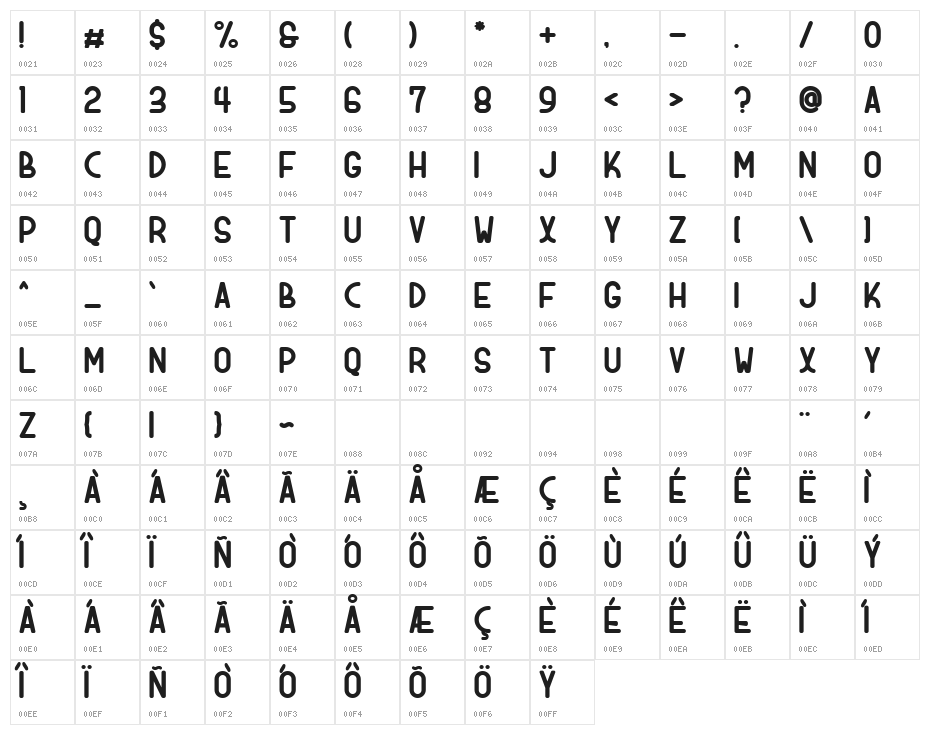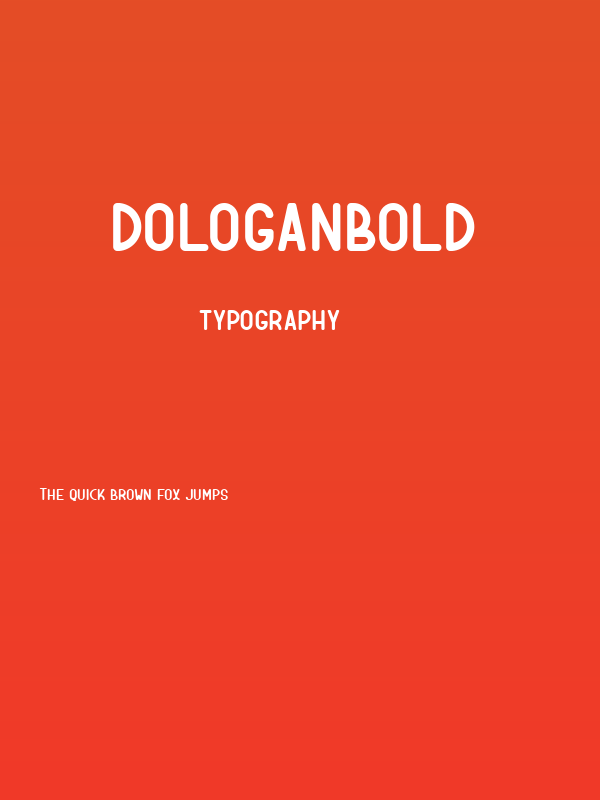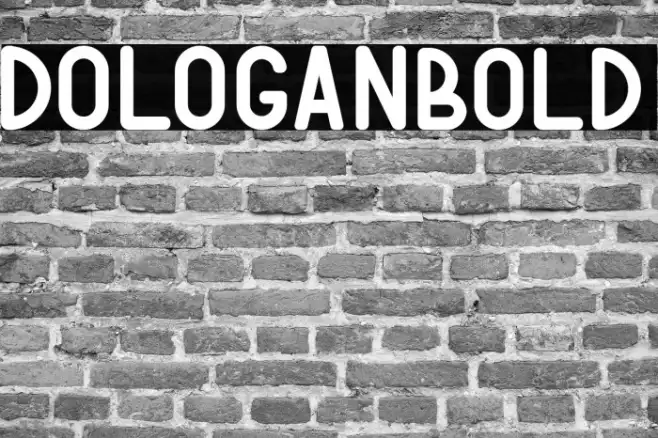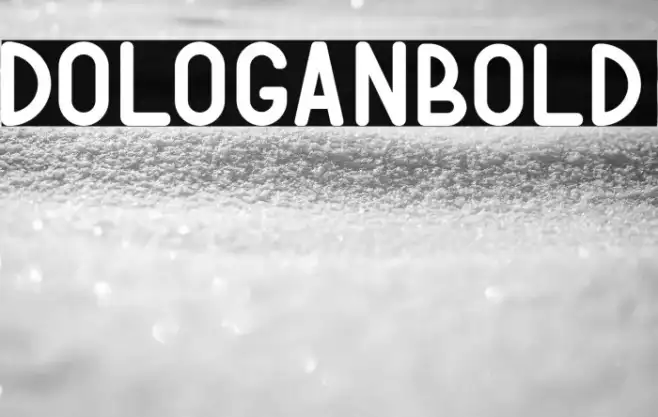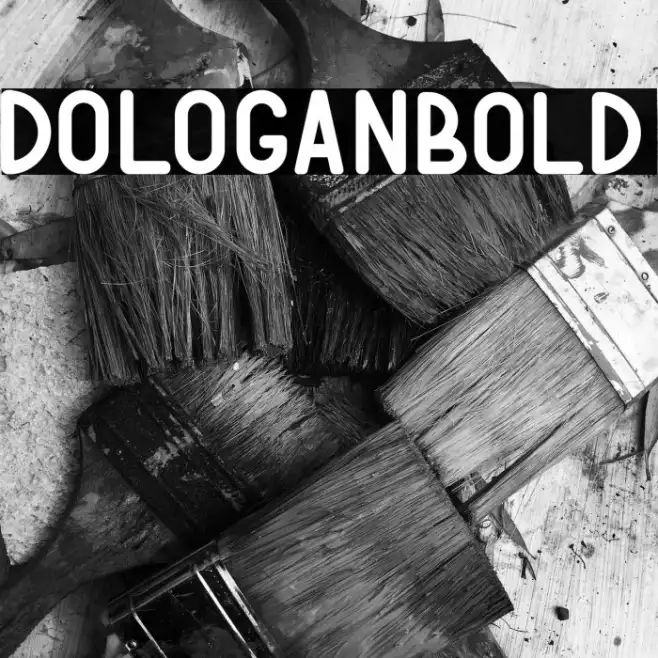
DOLOGANbold Font
DOLOGANbold Description
This font features a bold and rounded style, characterized by its smooth curves and uniform stroke width. The letters are evenly spaced, providing a clean and modern appearance. The uppercase and lowercase letters maintain a consistent height, enhancing readability. The numbers and special characters are designed to match the overall aesthetic, making them easily distinguishable. This font's playful yet professional look makes it versatile for various design applications.
| Proposed Projects | Ideal for branding, packaging, children's books, and playful advertising campaigns. |